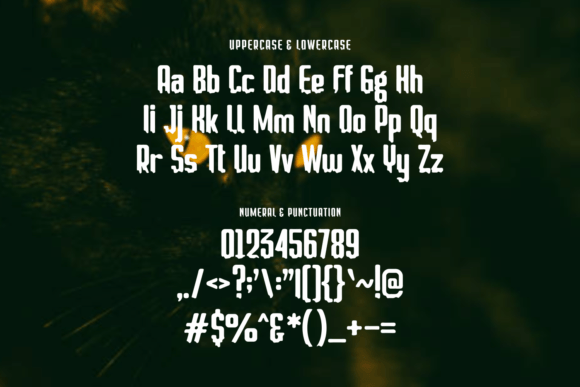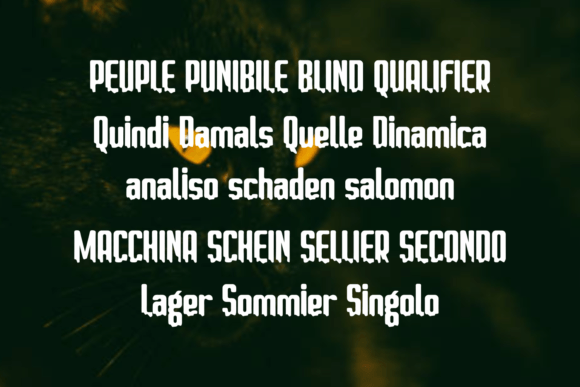
Crisno Font: The Spookiest Font for Your Horror-themed Designs
Are you looking for a font that can add a touch of horror and spookiness to your designs? Look no further than the Crisno Font. This scary font is perfect for creating a chilling ambiance in various design projects, including invitations, postcards, posters, and headings for Halloween events. In this article, we’ll dive into the world of Crisno Font and explore its features, uses, and benefits for designers and crafters.
The Crisno Font: A Scary yet Fascinating Typeface
The Crisno Font is a unique and eerie typeface that is sure to send shivers down the spine of anyone who sees it. The font features dripping letters that give off a sense of horror and foreboding, making it perfect for designs that require a spooky touch. The additional dripping letters in the font add an extra layer of creepiness, making it an excellent choice for Halloween-themed designs, horror movie posters, and other spooky projects.
Uses of Crisno Font
The Crisno Font can be used in a variety of design projects, including:
• Halloween Invitations: Create spooky and inviting Halloween invitations that will set the tone for a howling good time.
• Postcards: Design creepy postcards that will leave a lasting impression on the recipient.
• Posters: Create eye-catching posters for horror movies, haunted houses, or other spooky events.
• Headings: Use the Crisno Font as headings for Halloween events, such as trick-or-treat parties, costume contests, or horror movie screenings.
Benefits of Using Crisno Font
The Crisno Font offers several benefits for designers and crafters, including:
• Unique and Eye-catching: The Crisno Font is a one-of-a-kind typeface that is sure to grab attention and leave a lasting impression.
• Versatile: The Crisno Font can be used in a variety of design projects, from digital designs to print materials.
Tips for Using Crisno Font
Here are some tips for using the Crisno Font in your designs:
• Use it Sparingly: While the Crisno Font is eye-catching, it can be overwhelming if used excessively. Use it sparingly to create a greater impact.
• Pair it with Other Fonts: Pair the Crisno Font with other fonts to create a unique and visually appealing design.
• Experiment with Colors: Experiment with different colors to create a design that is both spooky and visually appealing.
In conclusion, the Crisno Font is a scary yet fascinating typeface that is perfect for designers and crafters looking to add a touch of horror and spookiness to their designs. With its unique and eye-catching features, the Crisno Font is sure to grab attention and leave a lasting impression. Whether you’re designing Halloween invitations, posters, or headings, the Crisno Font is an excellent choice. So, download the Crisno Font today and get creative with your spooky designs!